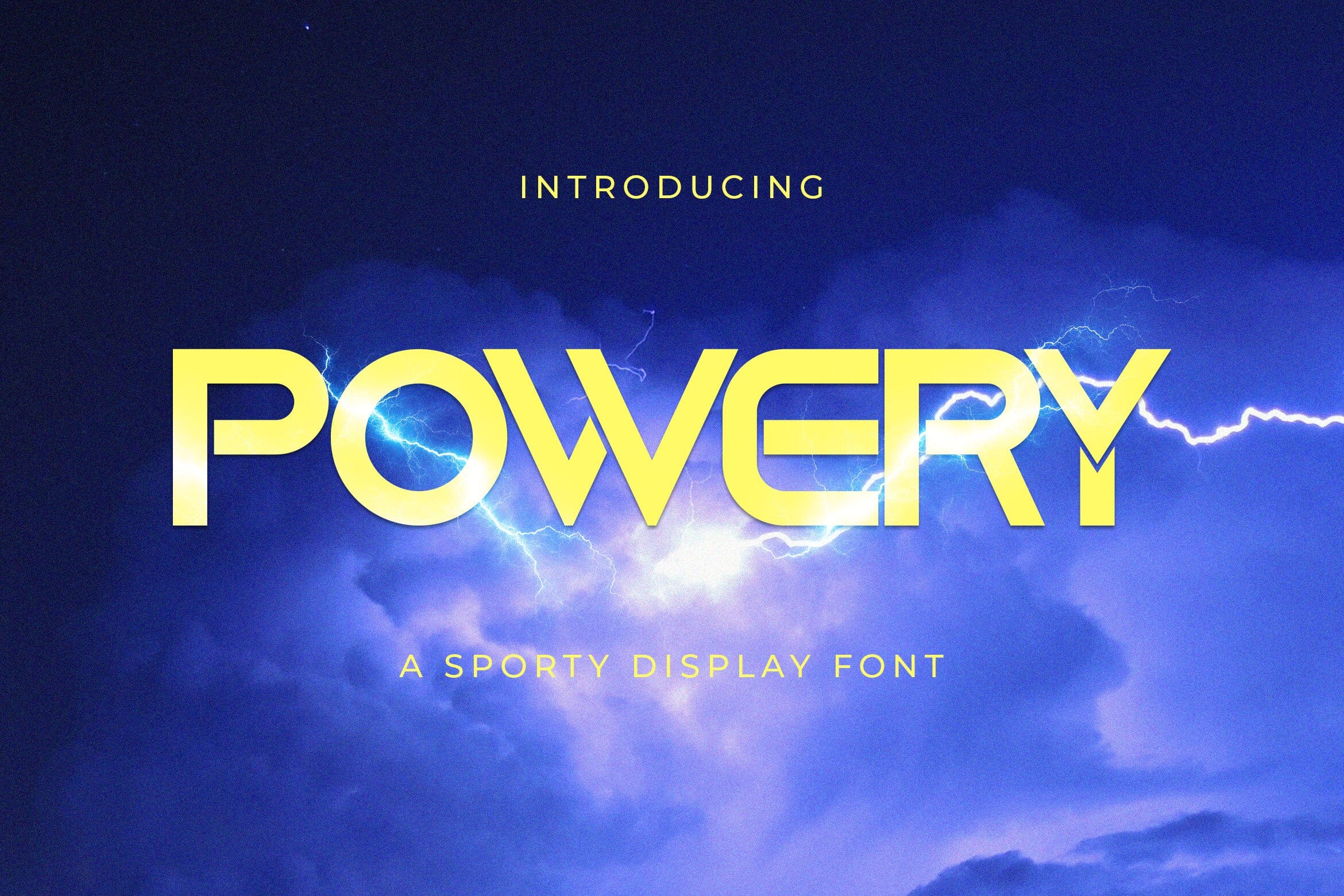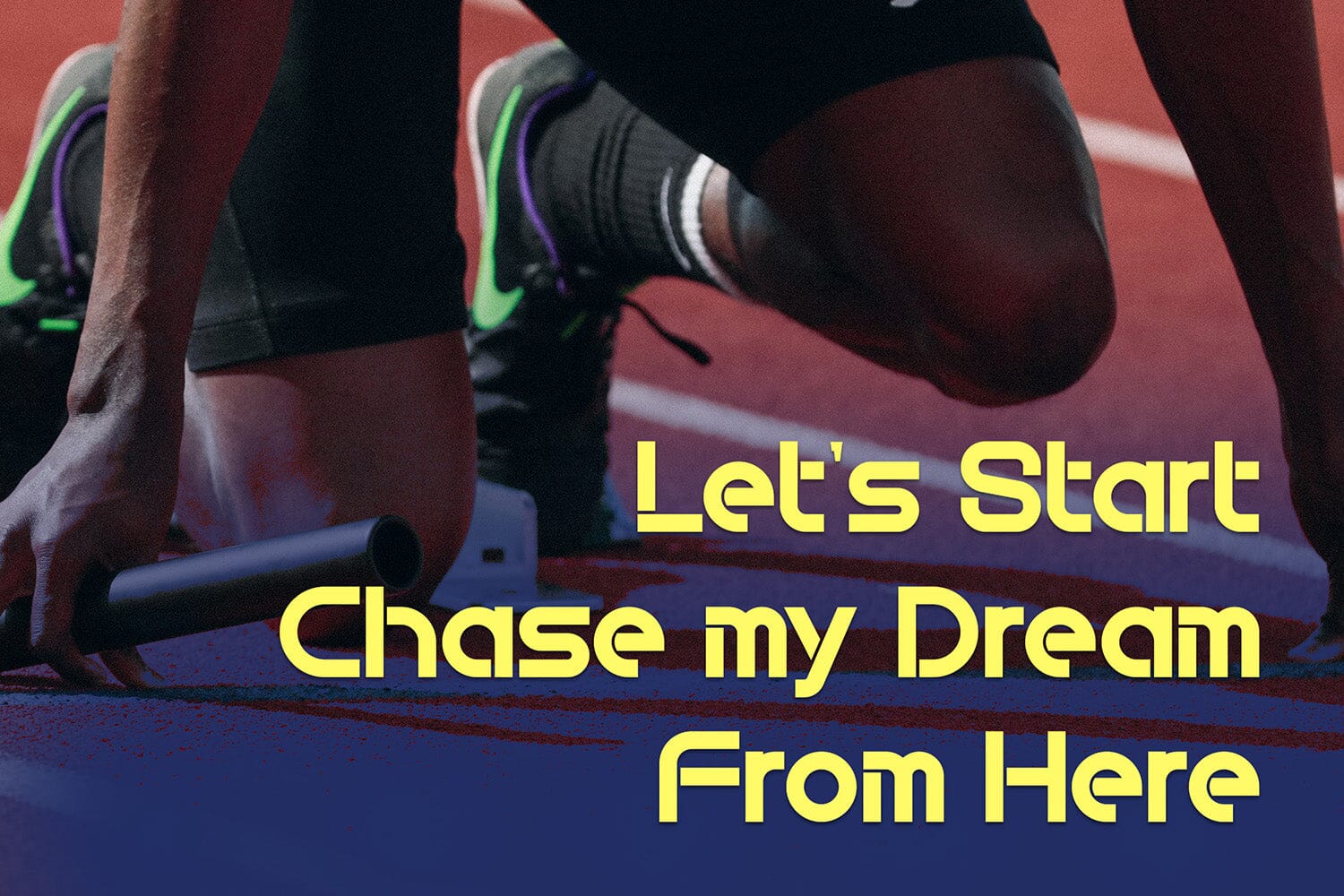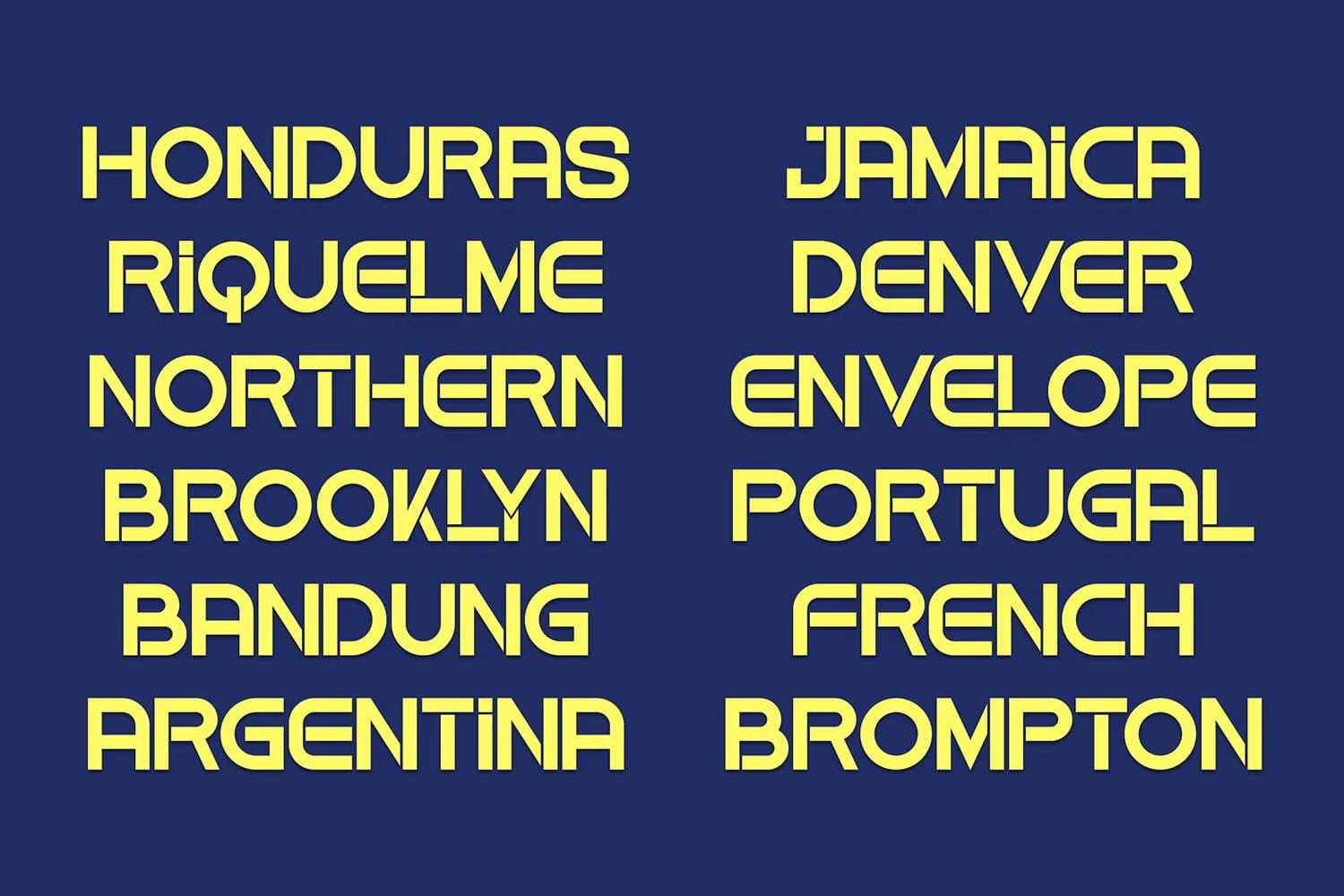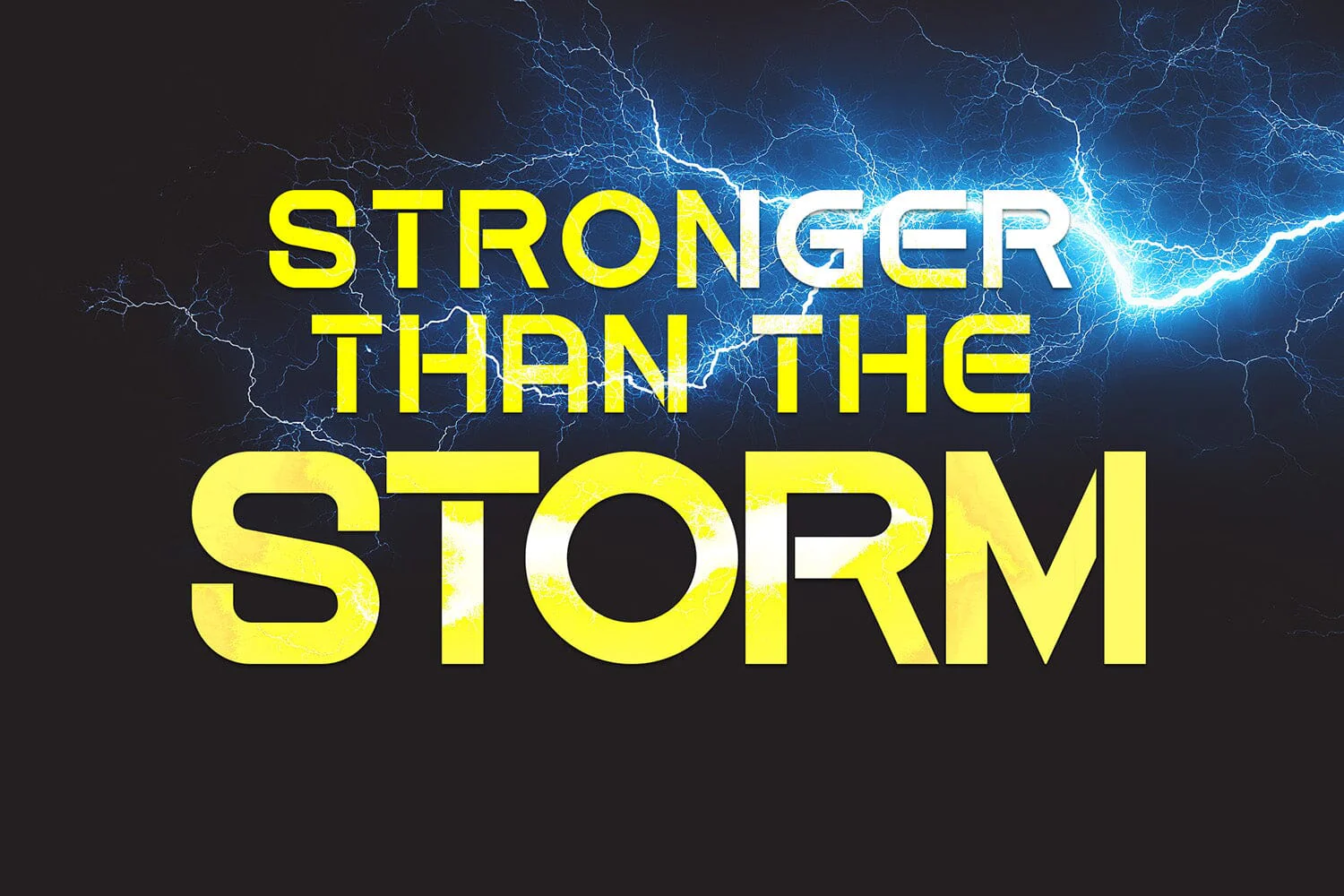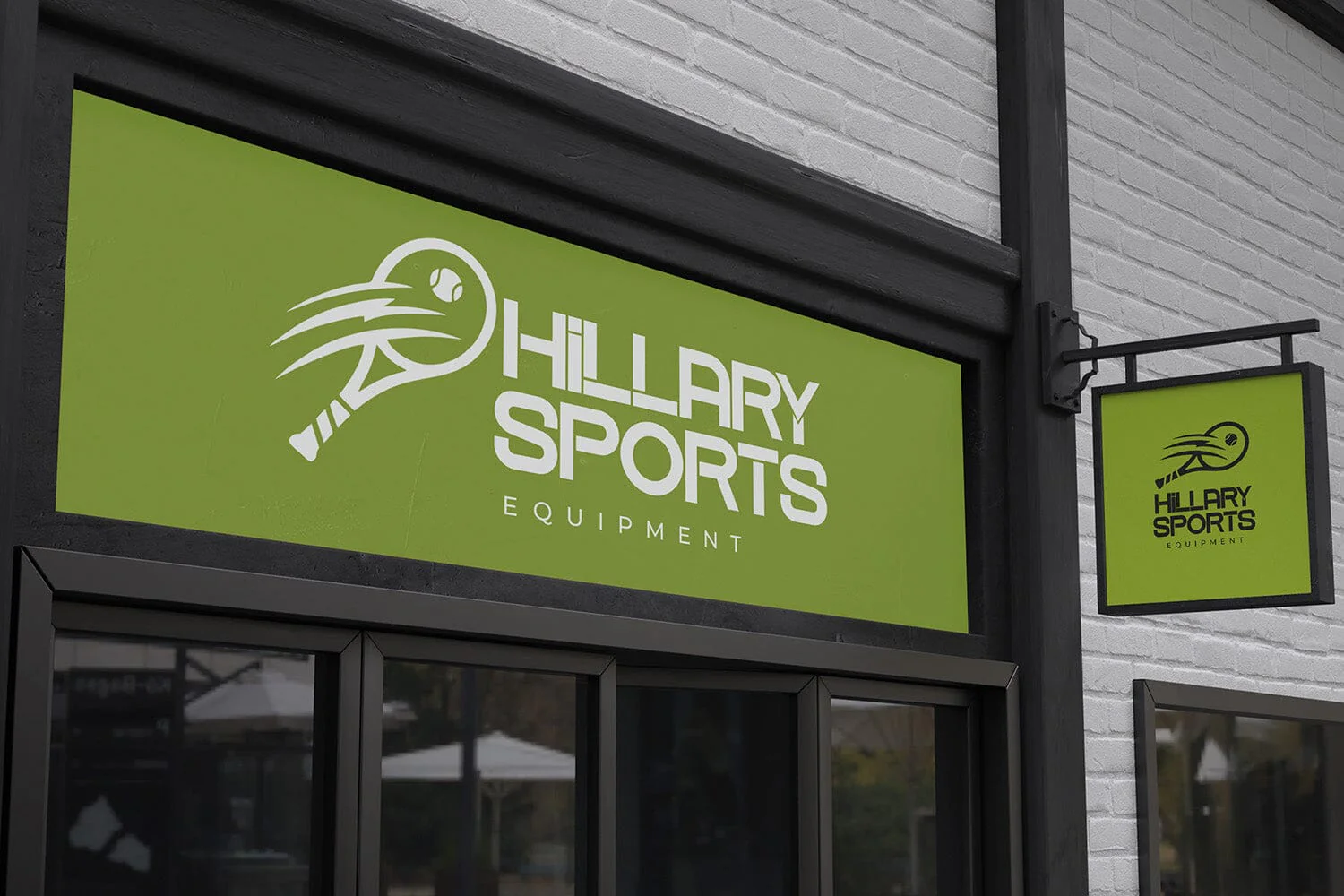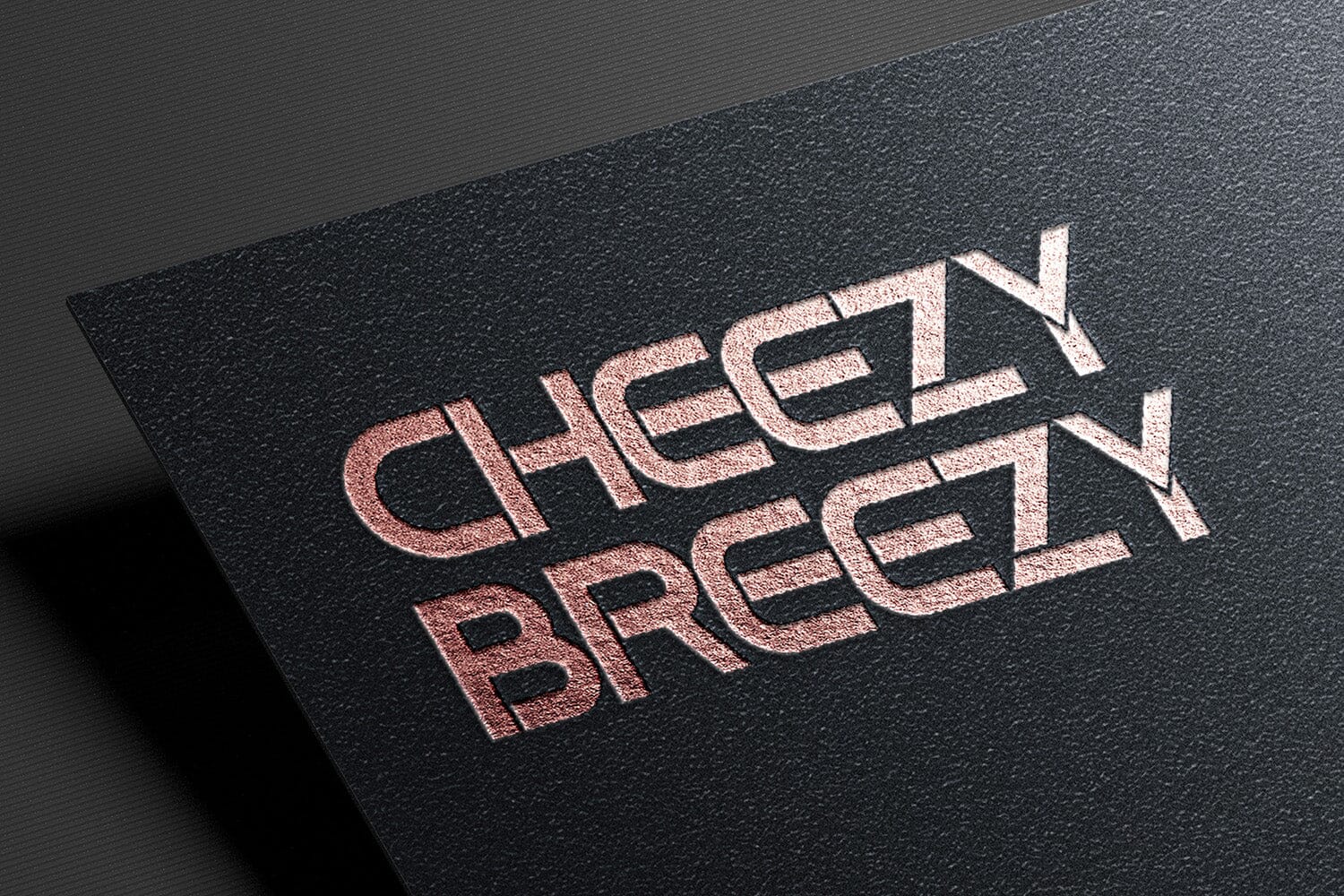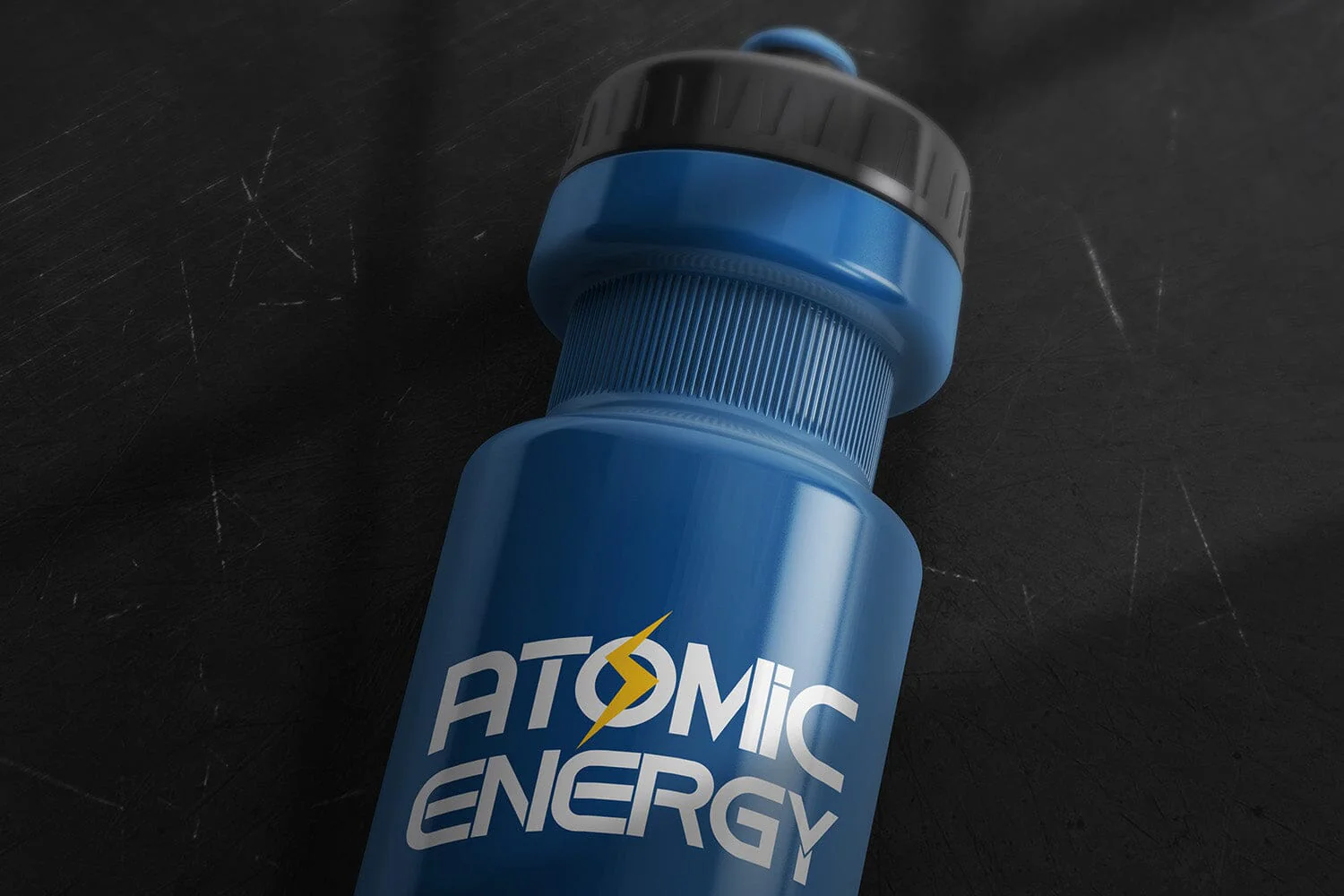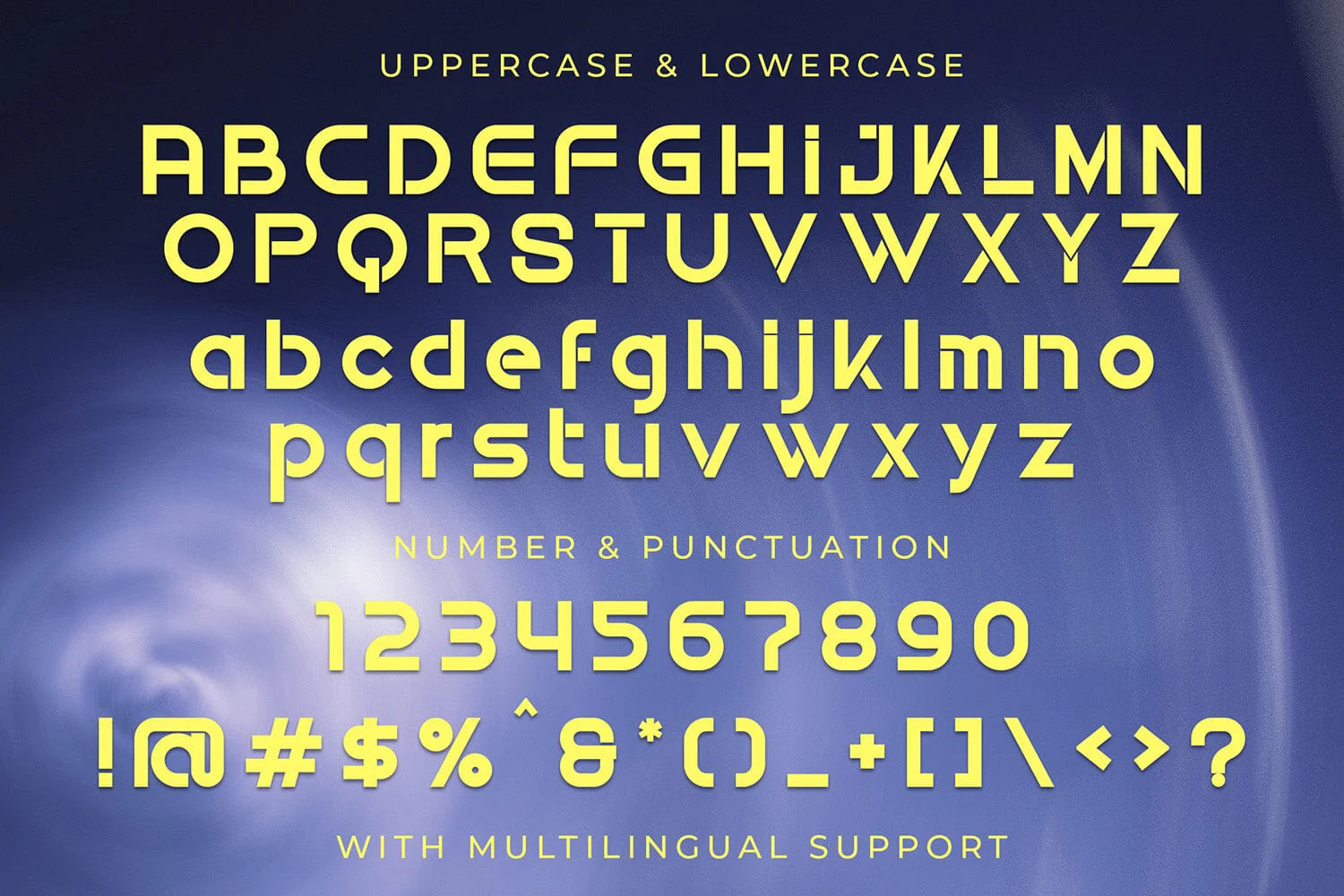
Powery - Sporty Display Font
Introducing Powery - Sporty Display Font
Powery is a sporty display font designed with a bold and energetic style. Its strong letterforms and clean structure create a powerful visual presence that instantly captures attention.
This font works perfectly for logos, branding, posters, headlines, social media graphics, packaging, and modern typography projects. Powery delivers a dynamic and confident look that helps designs feel more impactful and professional.
With its sleek shapes and sporty character, Powery adds a strong and modern typographic style that makes any design stand out.
Introducing Powery - Sporty Display Font
Powery is a sporty display font designed with a bold and energetic style. Its strong letterforms and clean structure create a powerful visual presence that instantly captures attention.
This font works perfectly for logos, branding, posters, headlines, social media graphics, packaging, and modern typography projects. Powery delivers a dynamic and confident look that helps designs feel more impactful and professional.
With its sleek shapes and sporty character, Powery adds a strong and modern typographic style that makes any design stand out.